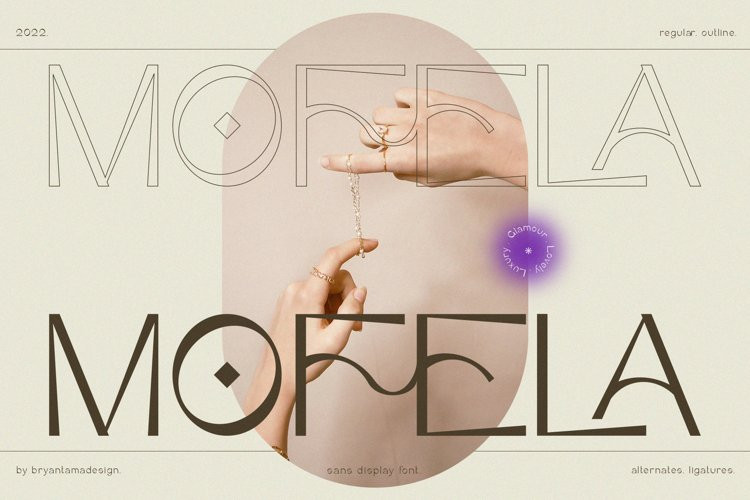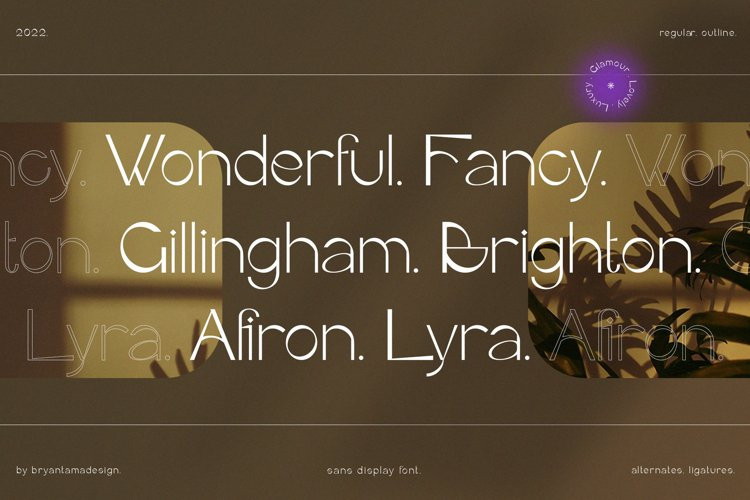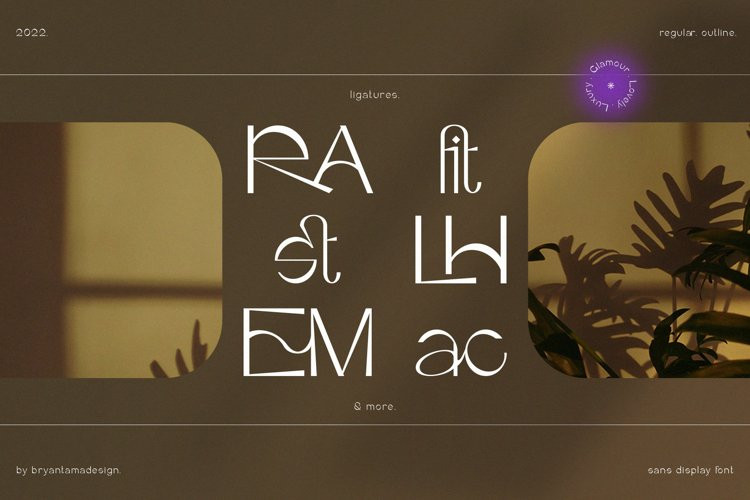
Mofela Font
Mofela FontIntroducing Mofela. Modern Displays Font.
Inspired by a luxury theme with magical feels that makes the font has a unique personality, you can use it for branding, social media, posters, packaging, & more.